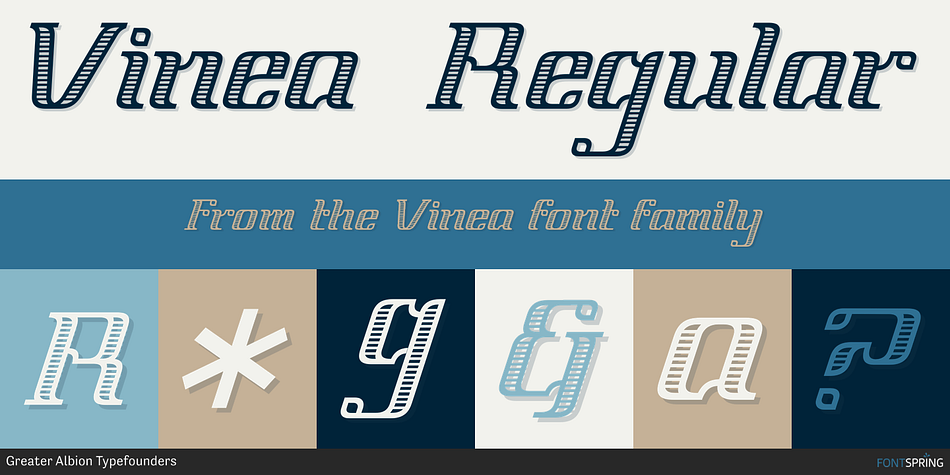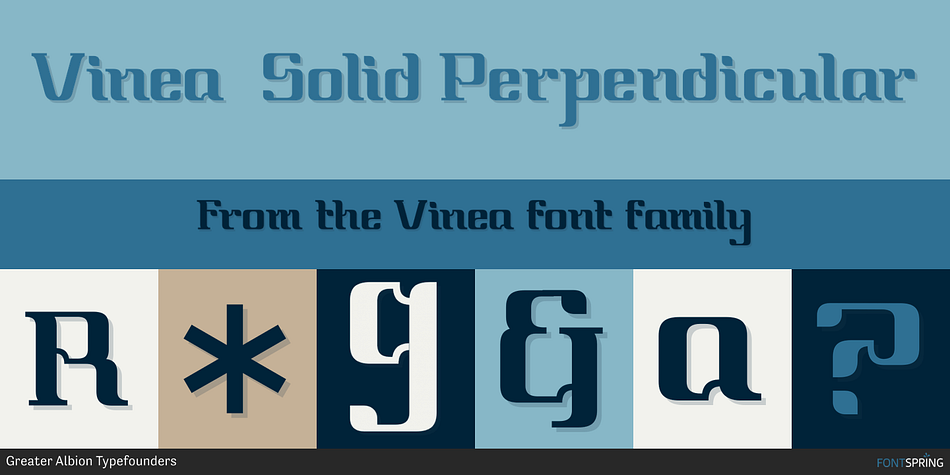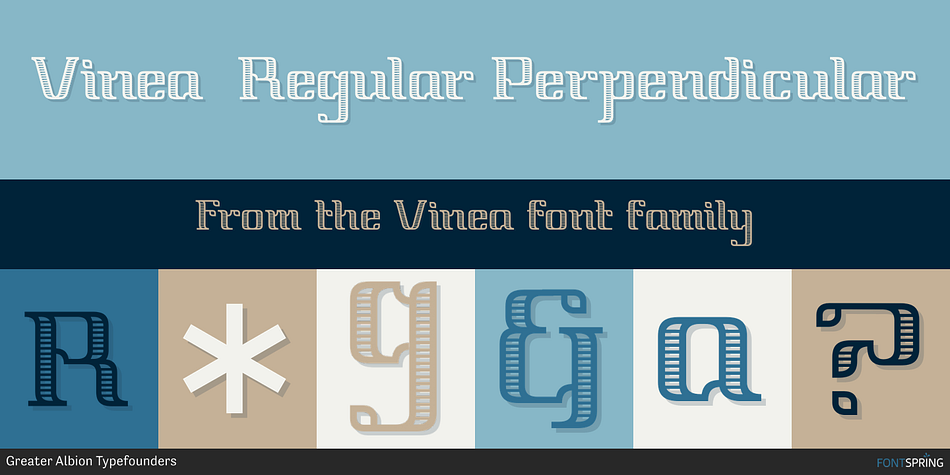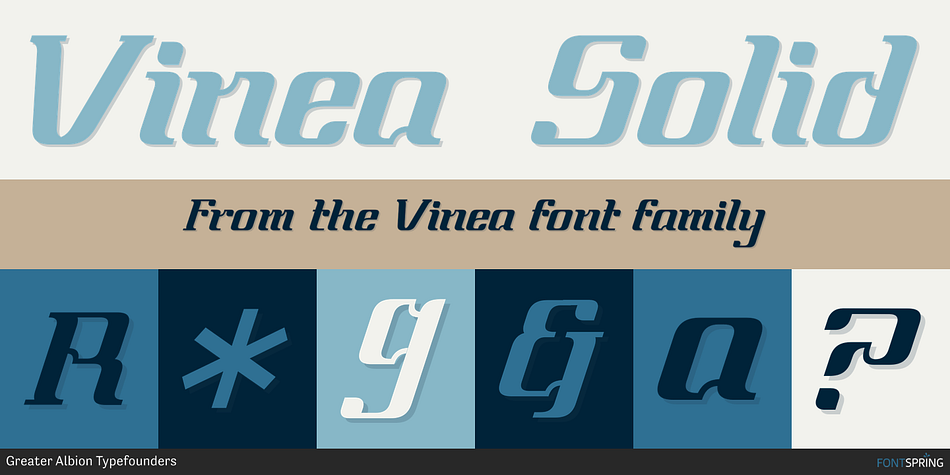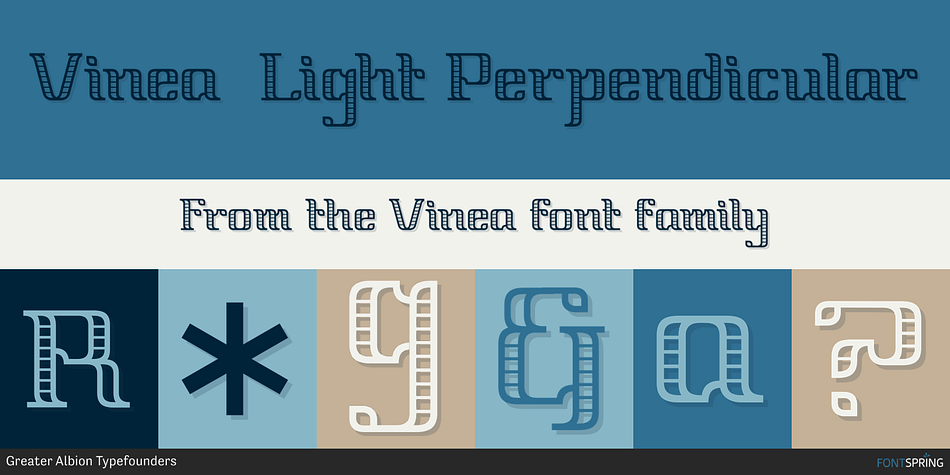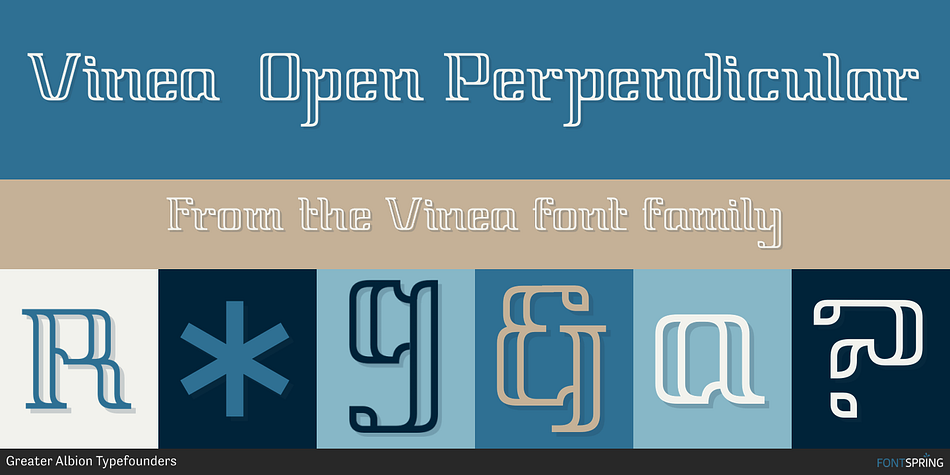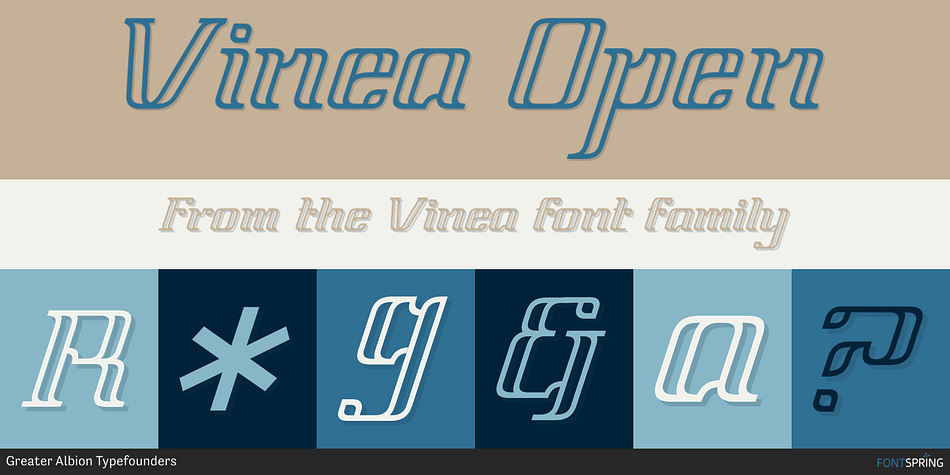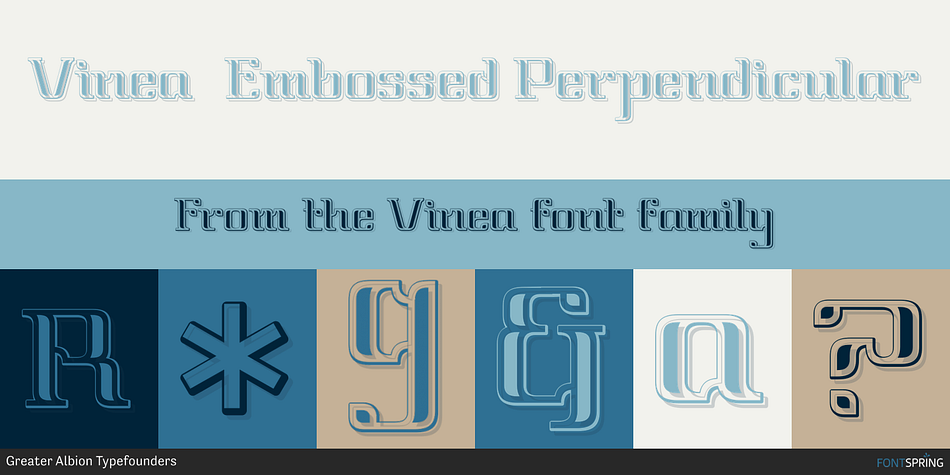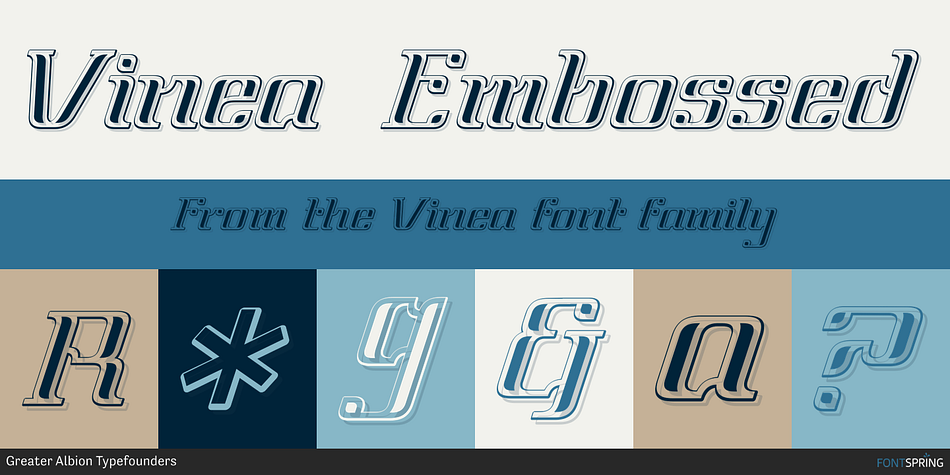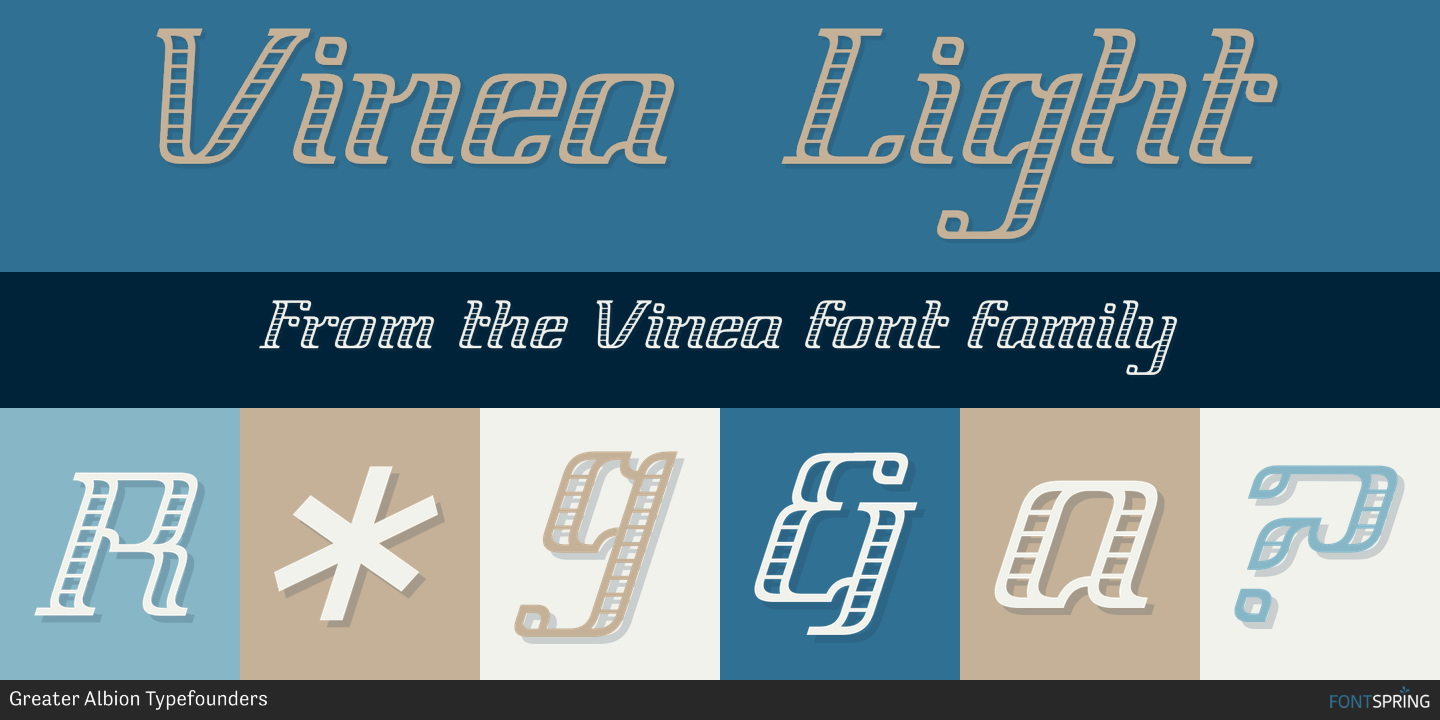
Vinea is a display font family. This typeface has ten styles and was published by Greater Albion Typefounders.
Vinea is a family of ten display faces that take us on an enjoyable excursion into the world of the retro-futuristic. Ideal for posters, book covers, and anything that needs the sort of futuristic feel that abounded in designs from the 30s to the fifties. The ten faces have been designed with uniform metrics, to facilitate multi-coloured overlay effects.